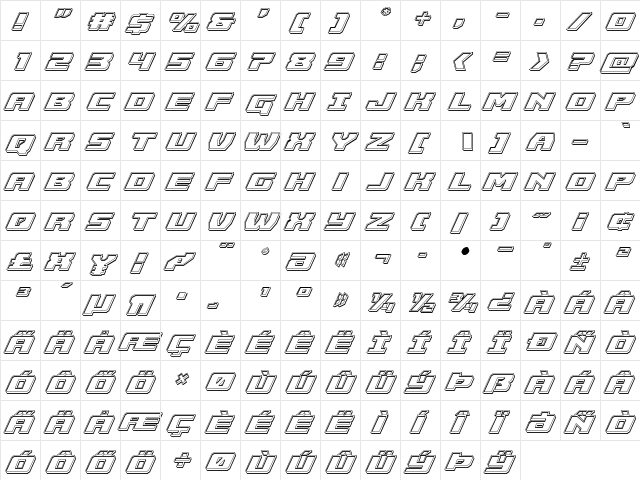
Cruiser Fortress Engraved Italic Italic Font Preview
Design Context for Cruiser Fortress Engraved Italic Typeface
Cruiser Fortress Engraved Italic is built around its visual character rather than neutral utility — its distinctive forms are designed to make an impression at display sizes. The dynamic lean of this cut emphasises speed and emphasis in any layout.
Font Pairing: Pair with a clean neutral sans-serif for body copy to let Cruiser Fortress Engraved Italic's character lead without overwhelming the composition.
Pro Tip: Use Cruiser Fortress Engraved Italic exclusively at display sizes — it was designed to be seen, not read at length. Let a neutral companion handle body copy.